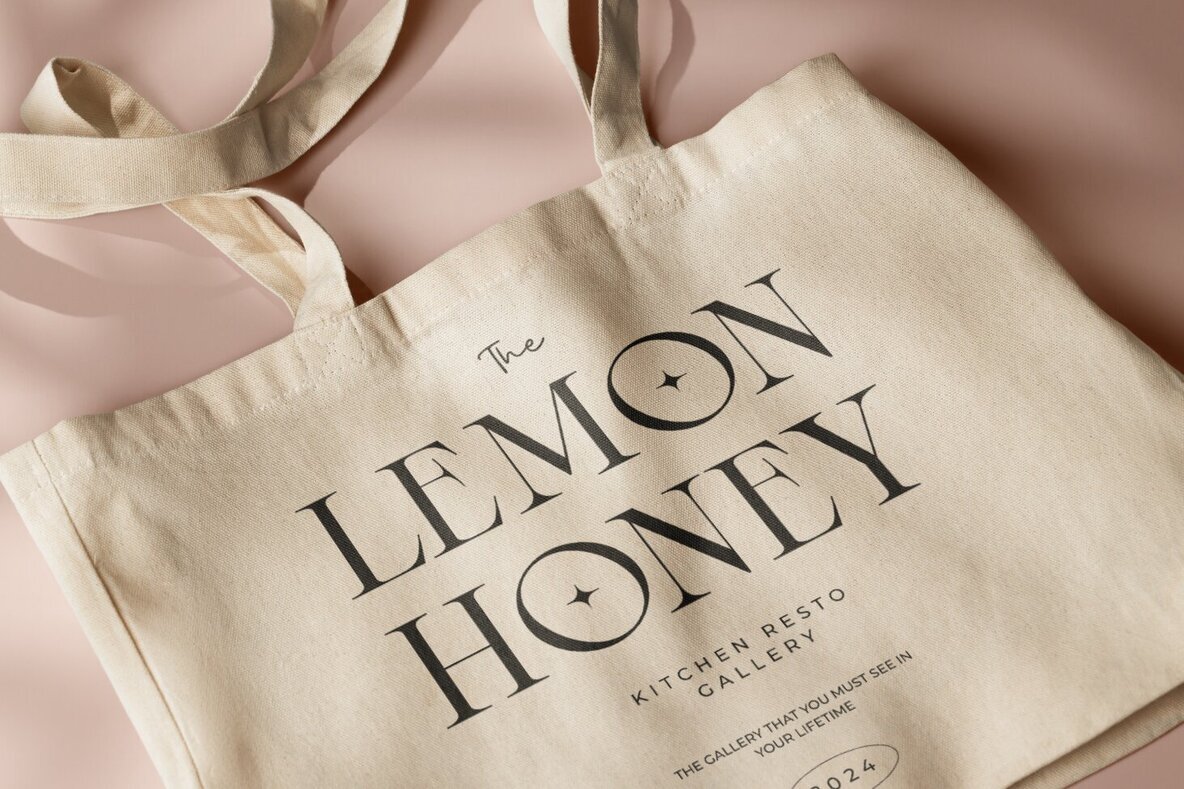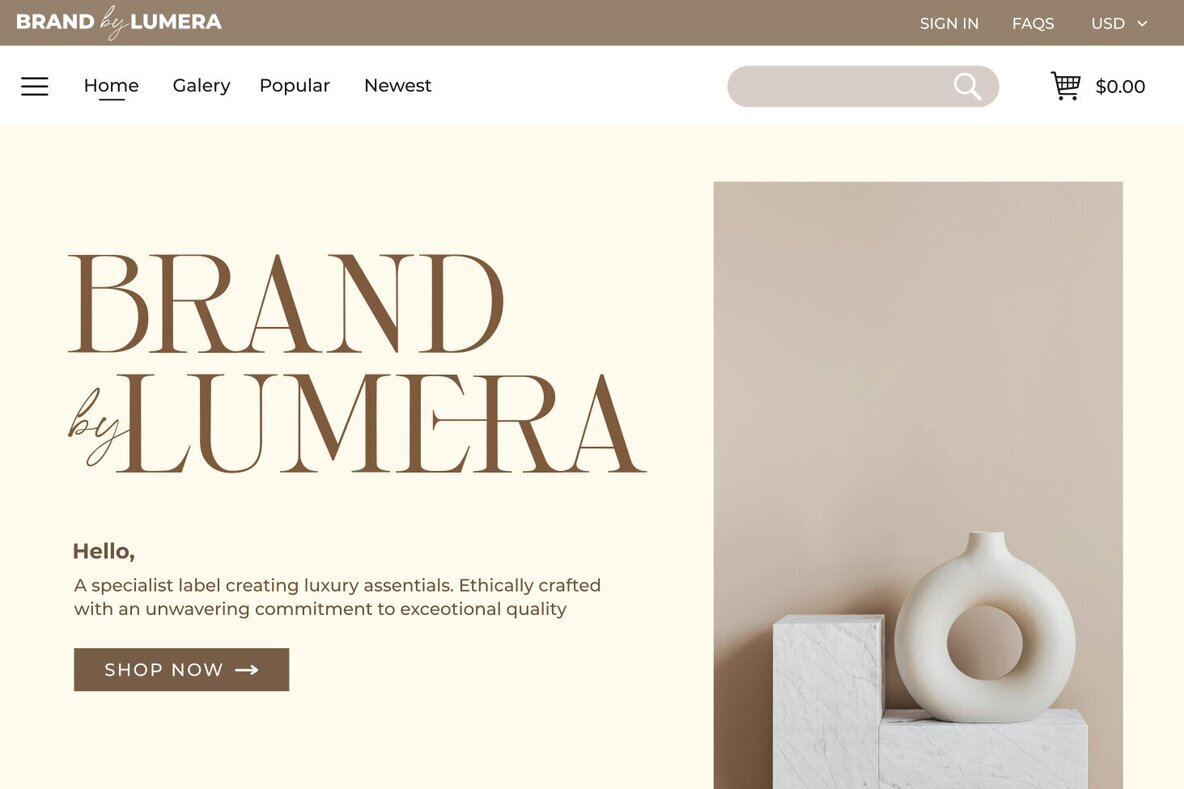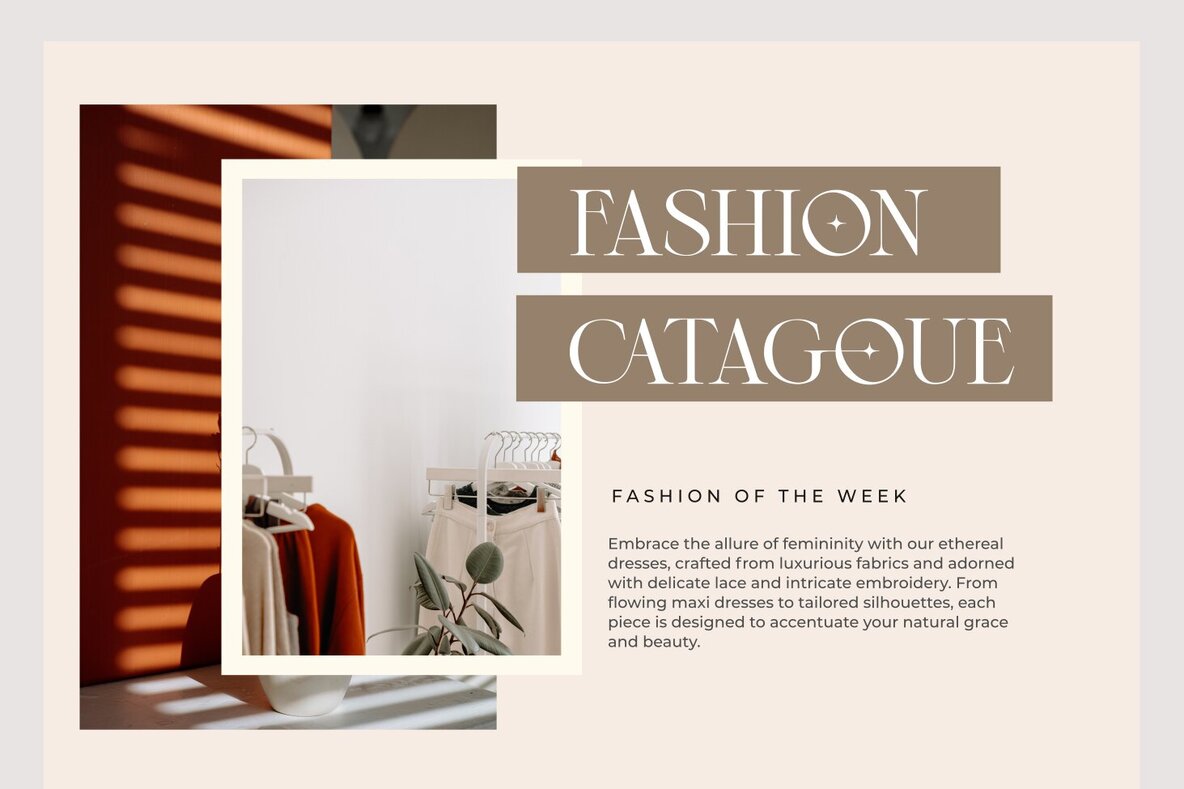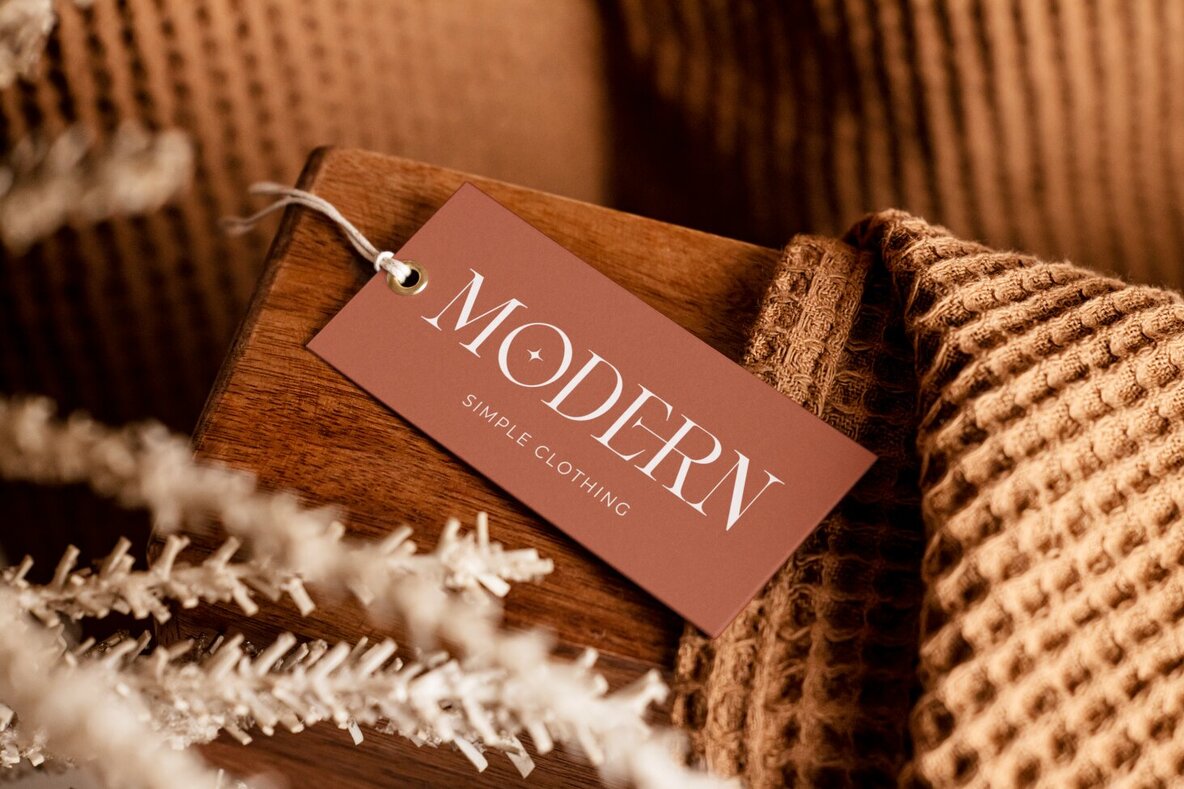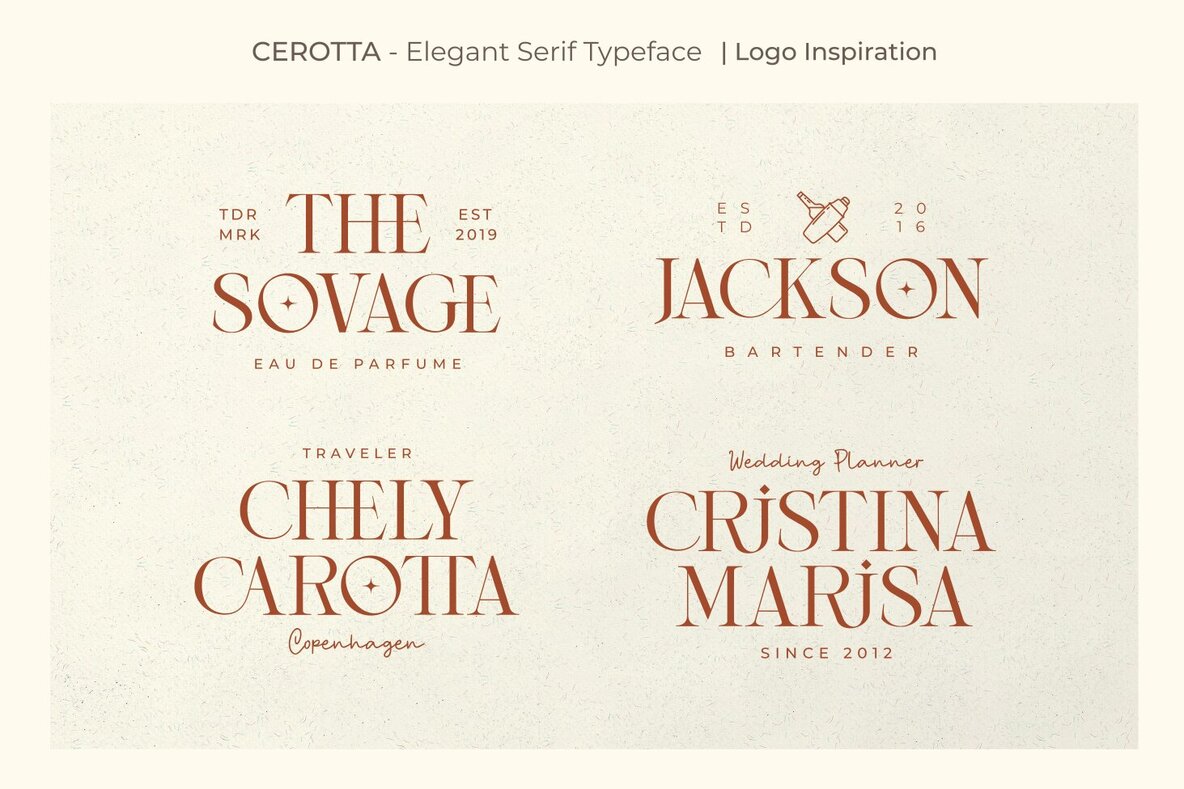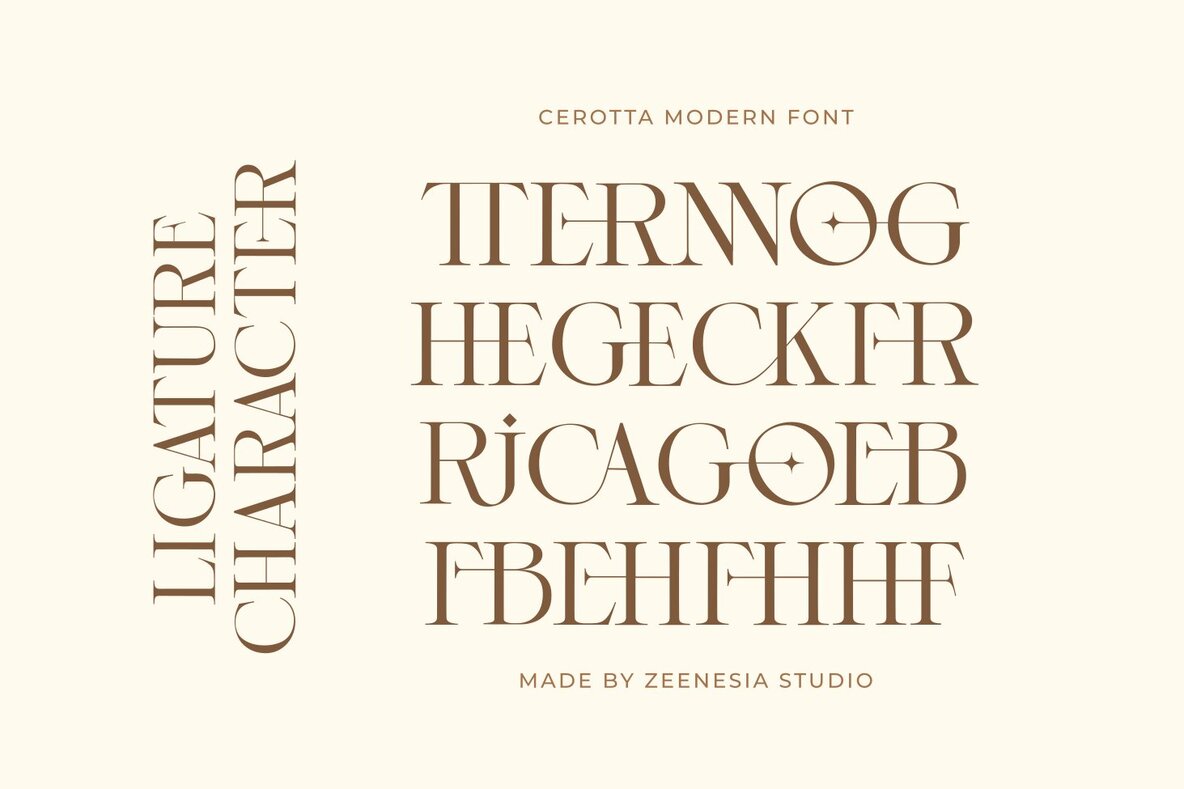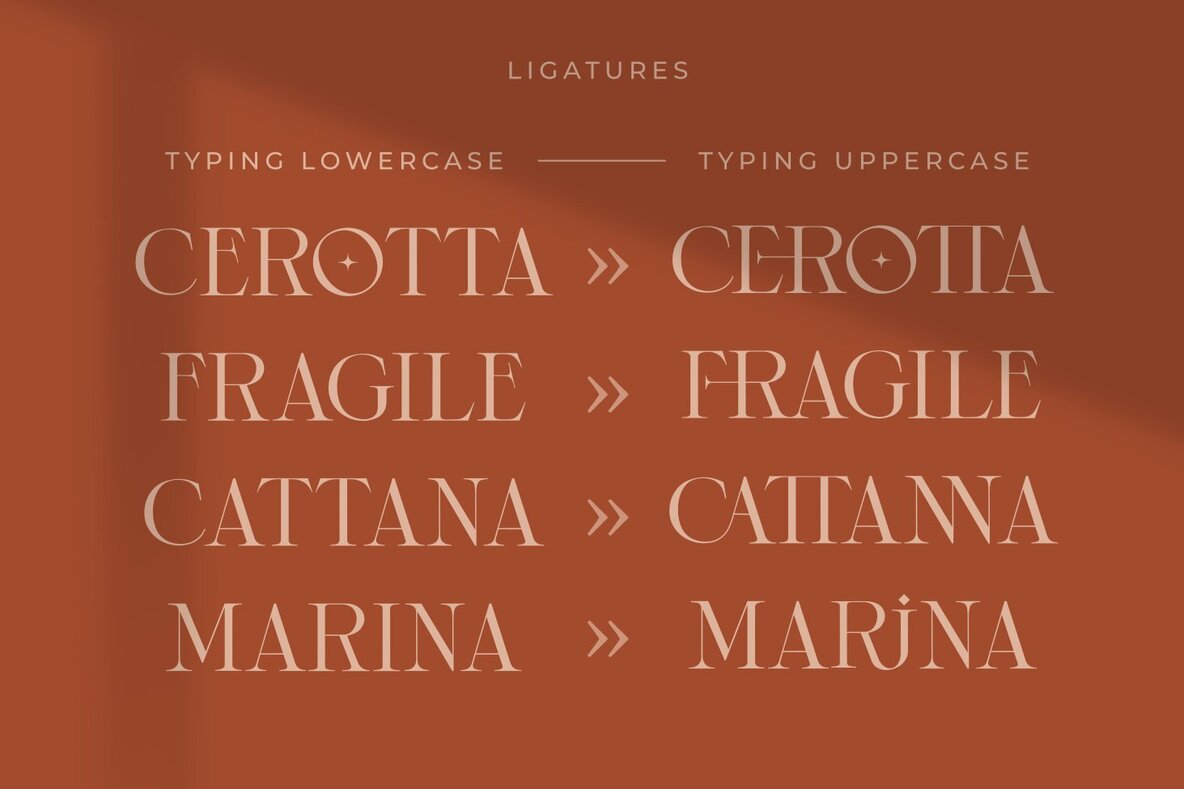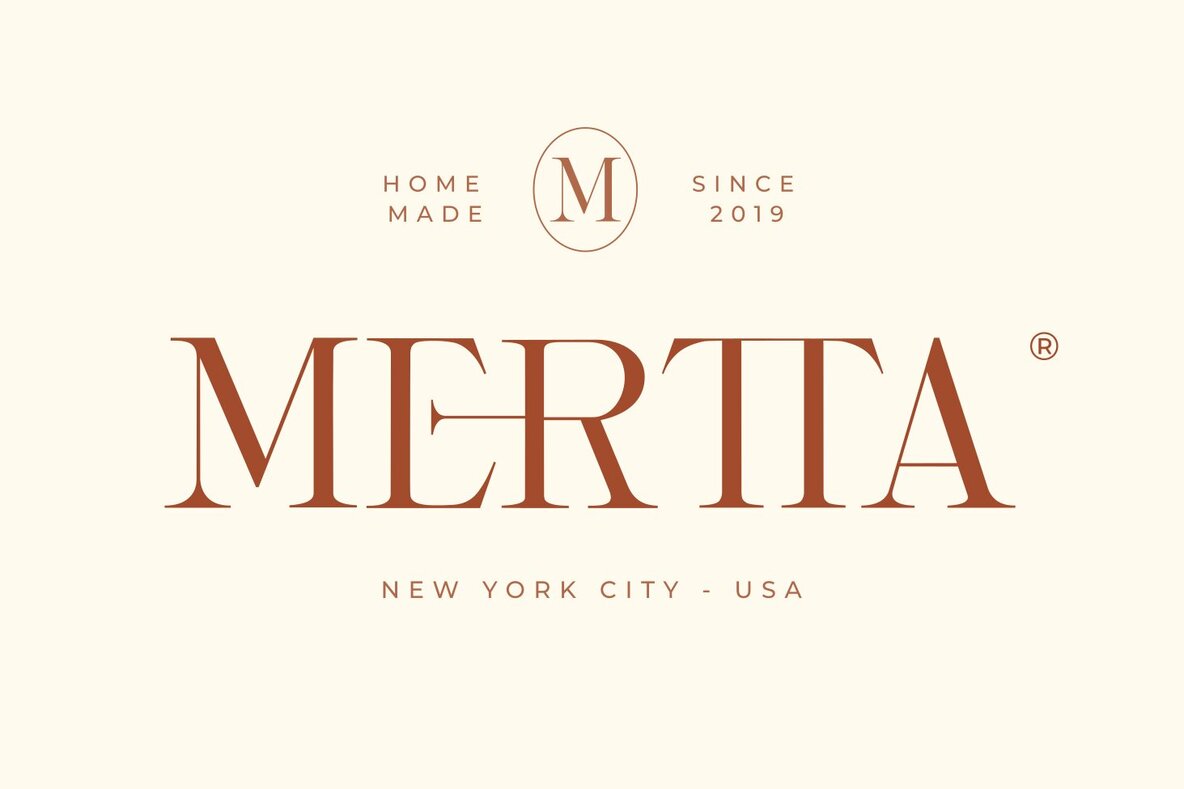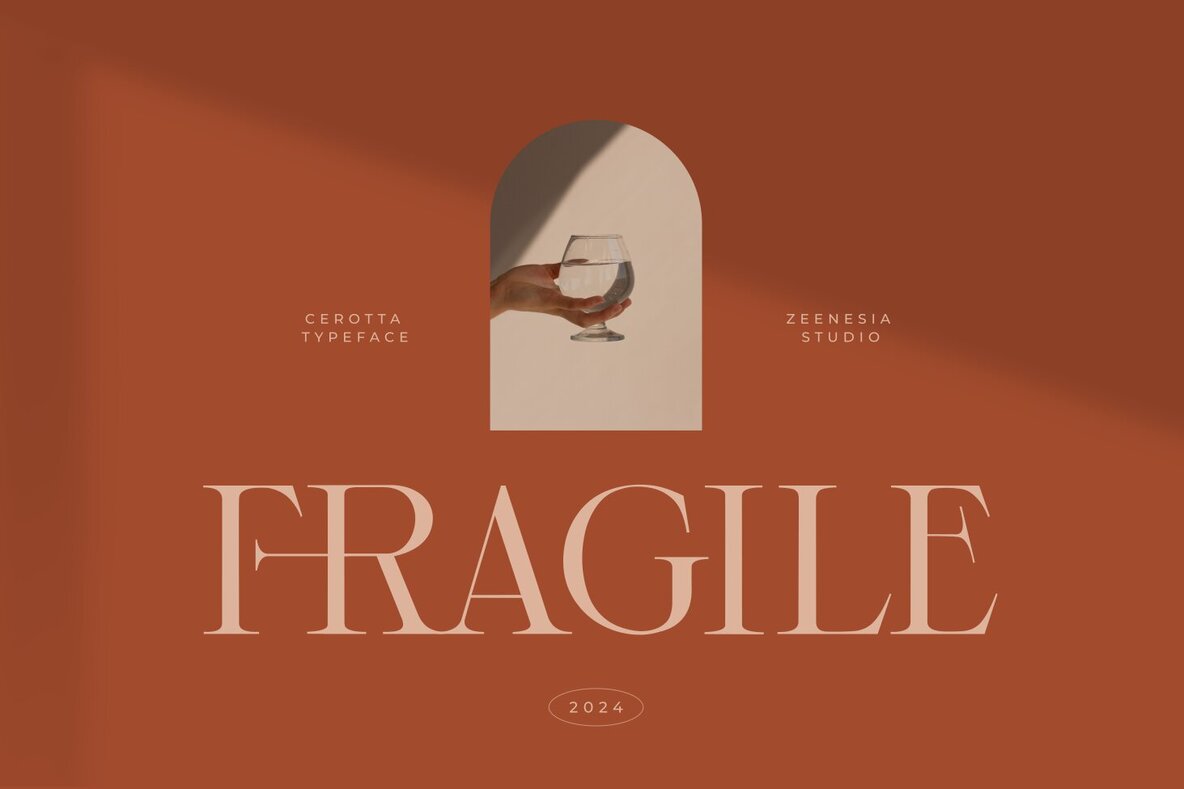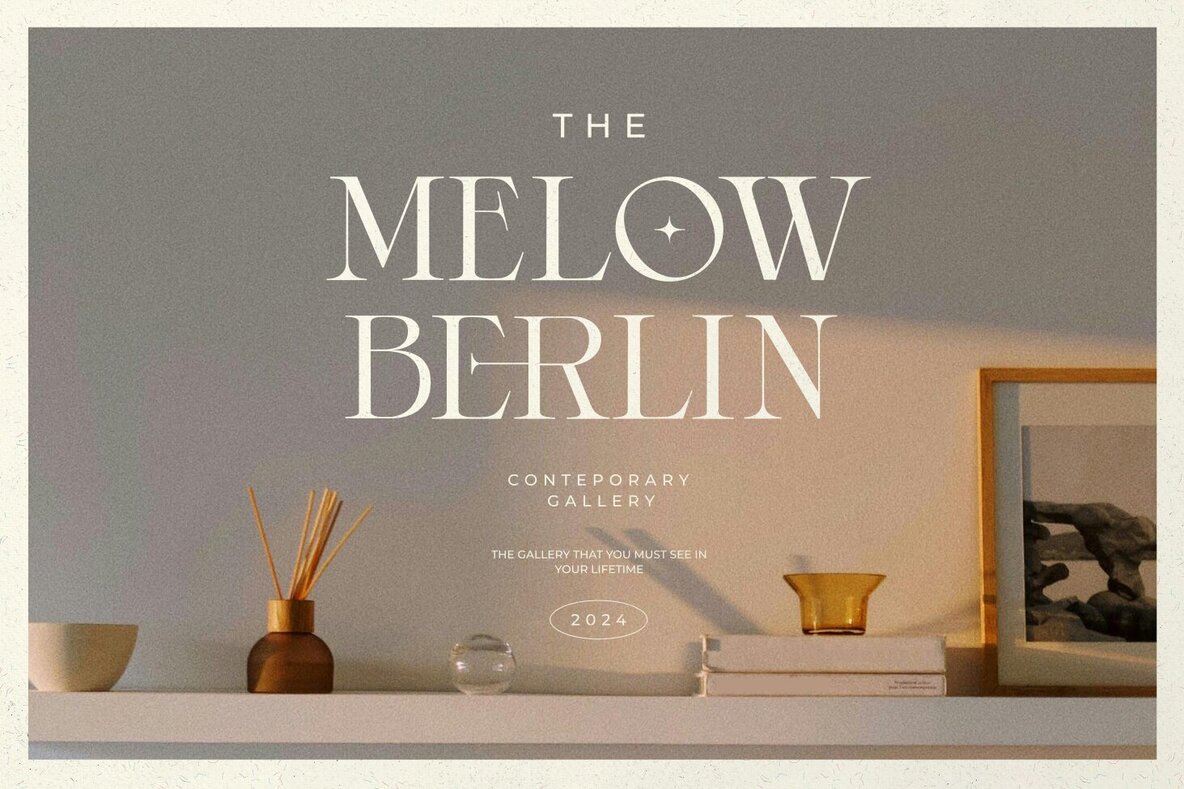
Cerotta Font
Cerotta Regular
Cerotta is a beautifully crafted serif font characterized by its romantic and elegant design. This smooth typeface incorporates natural ligatures, adding a classy touch that's ideal for greeting cards, wedding invitations, posters, logotypes, product branding, and more. We hope you find Cerotta inspiring for your creative projects. Please feel free to share your feedback or thoughts.Cerotta: Elegant Serif Font with Natural Ligatures